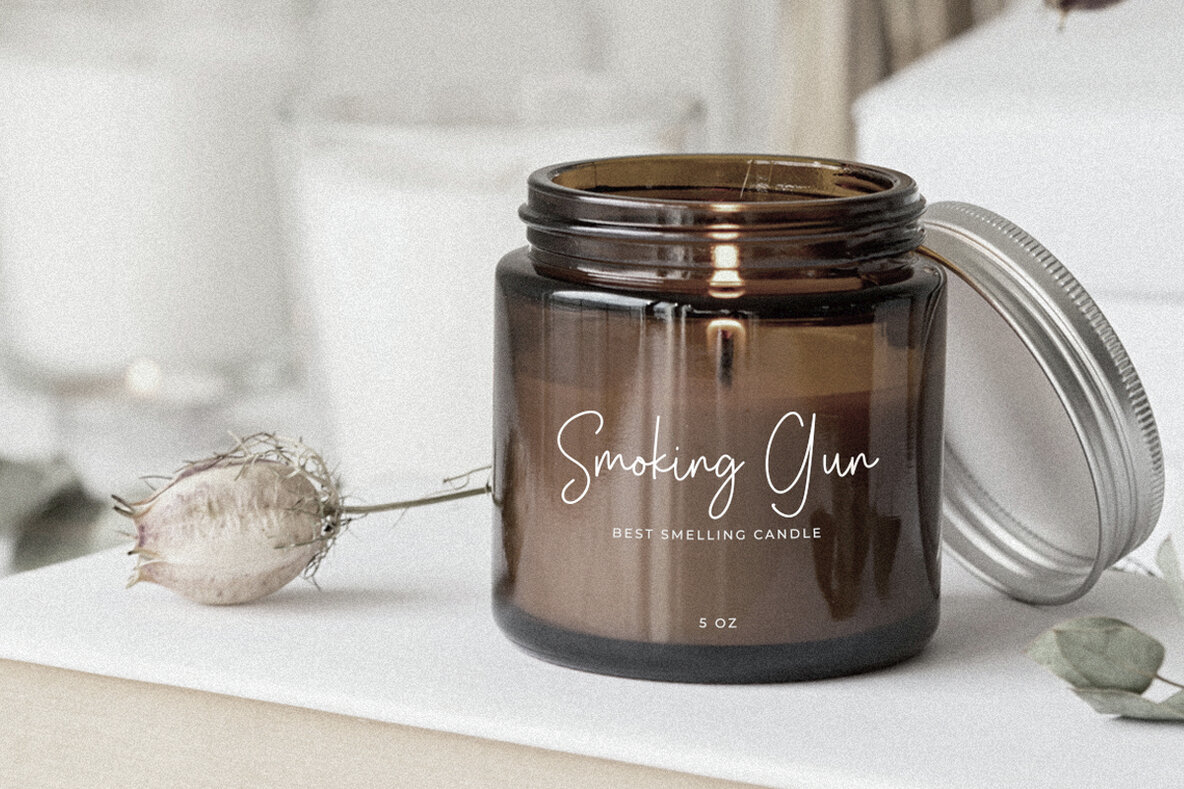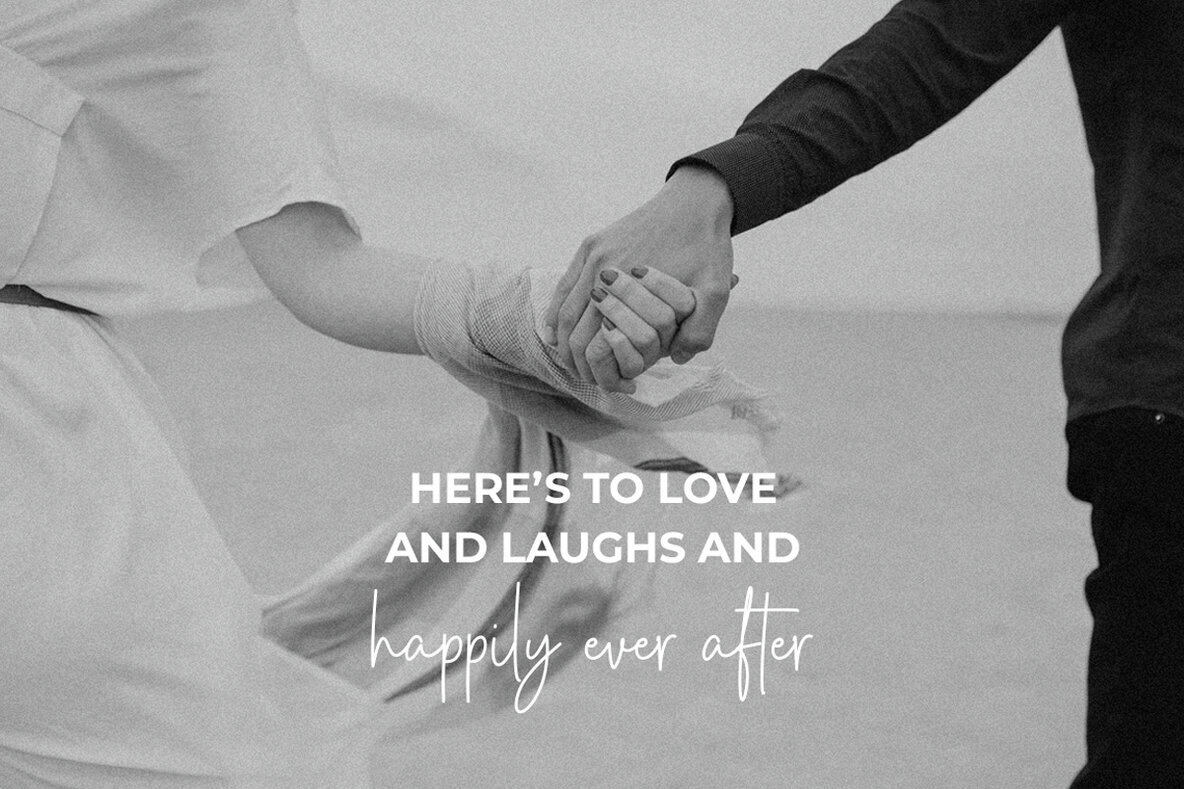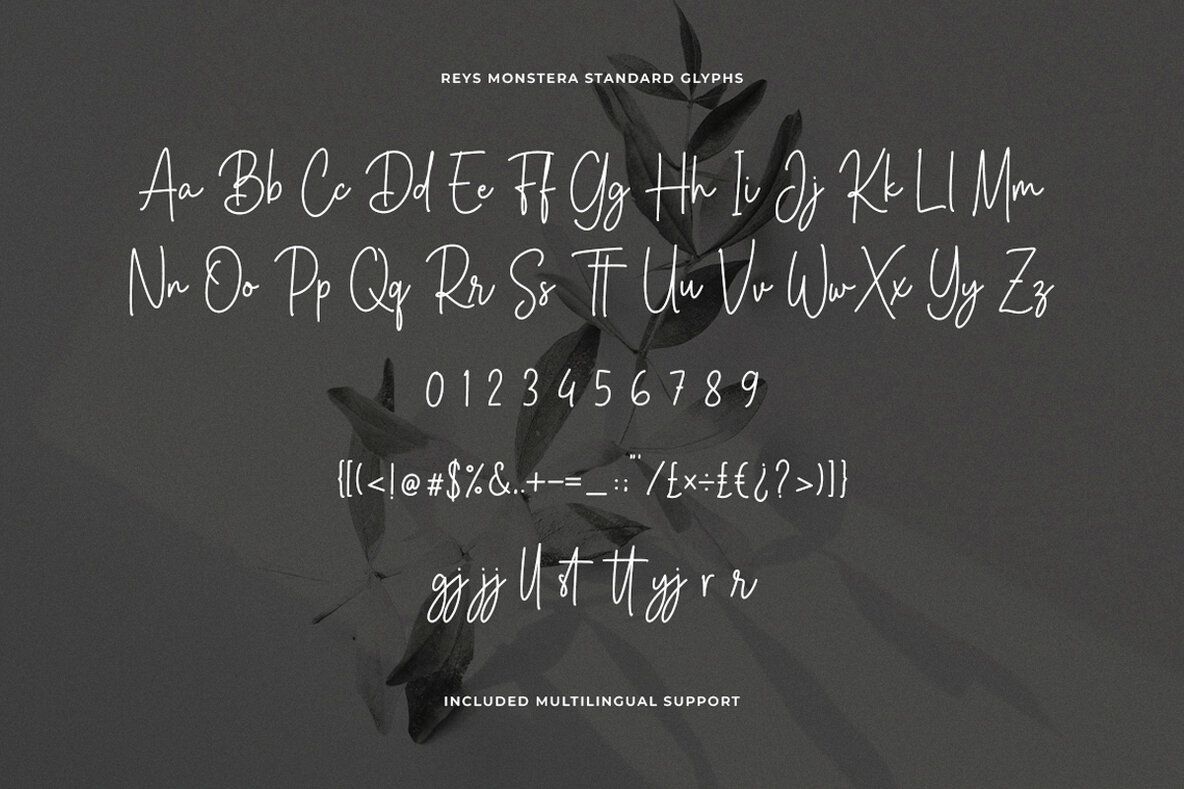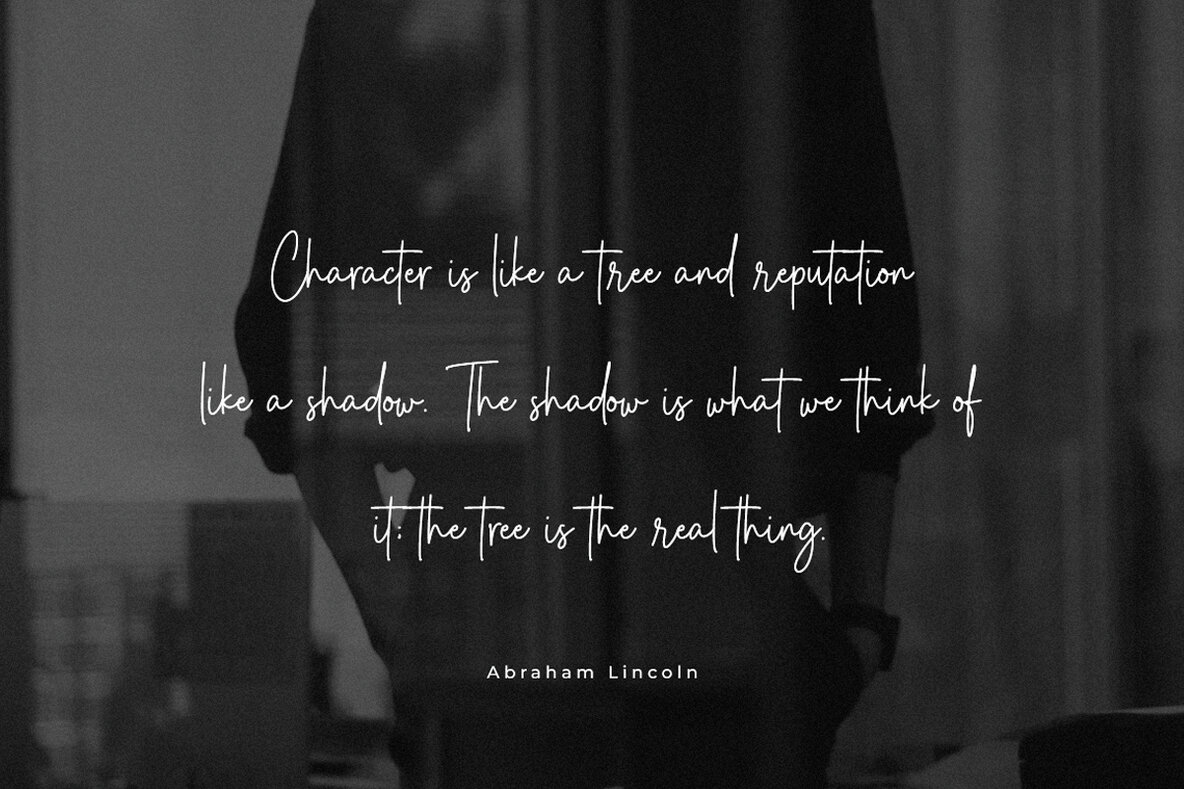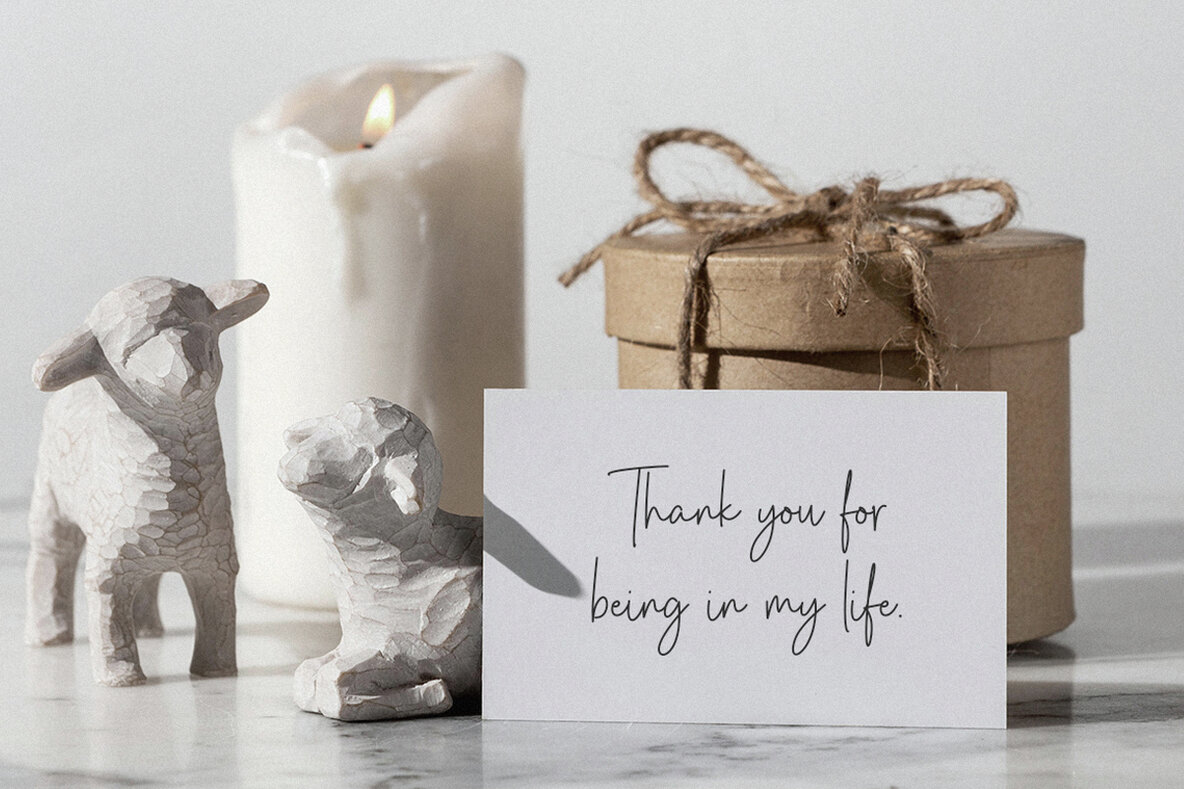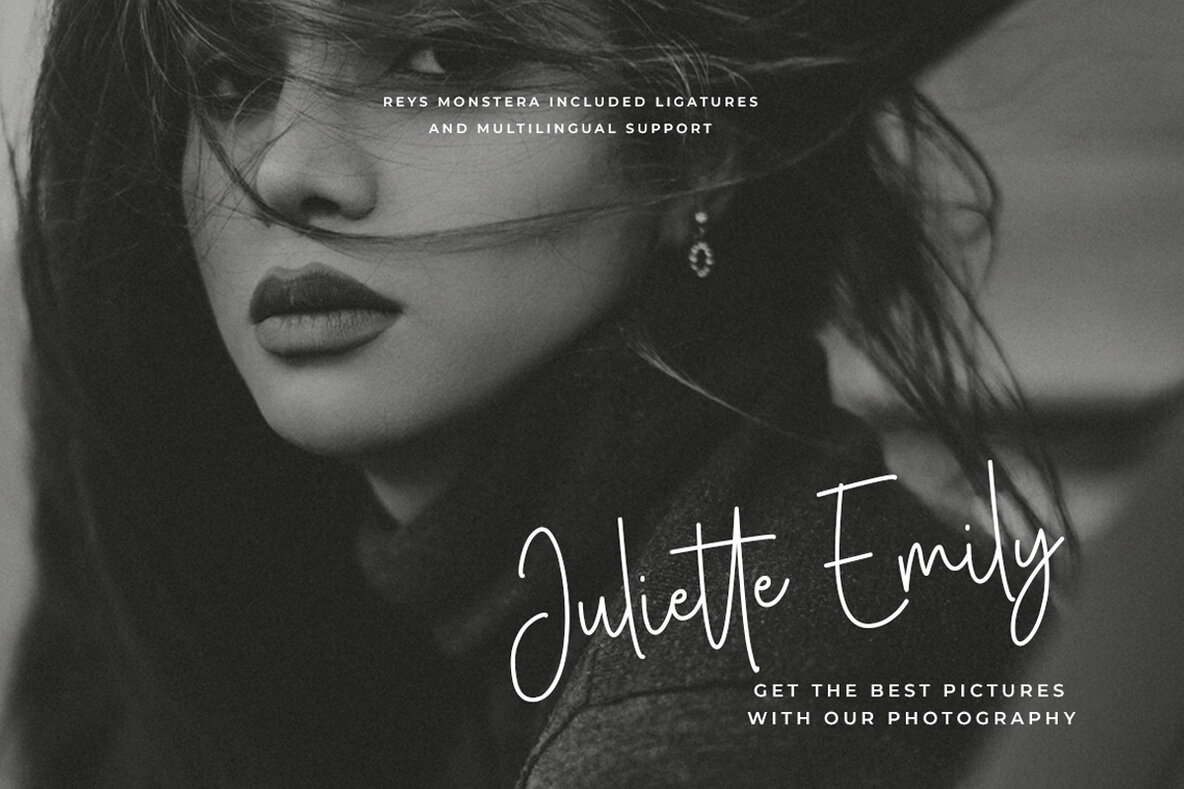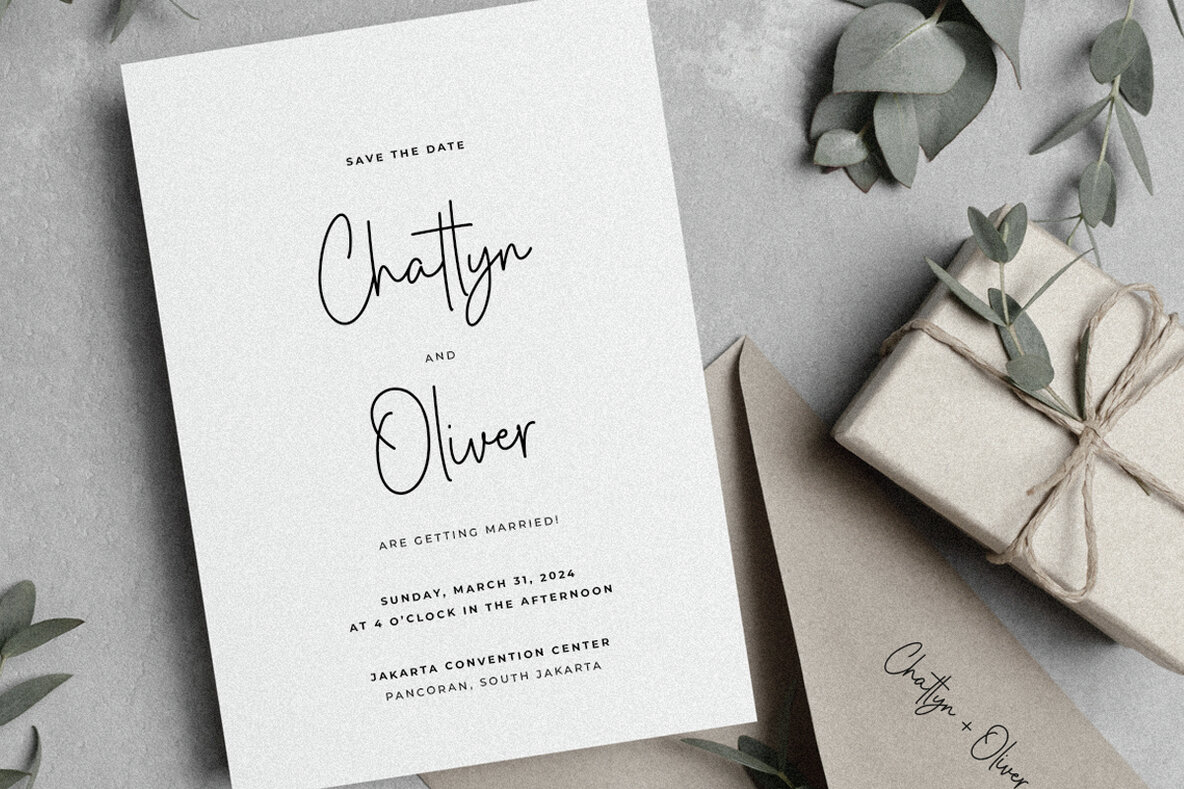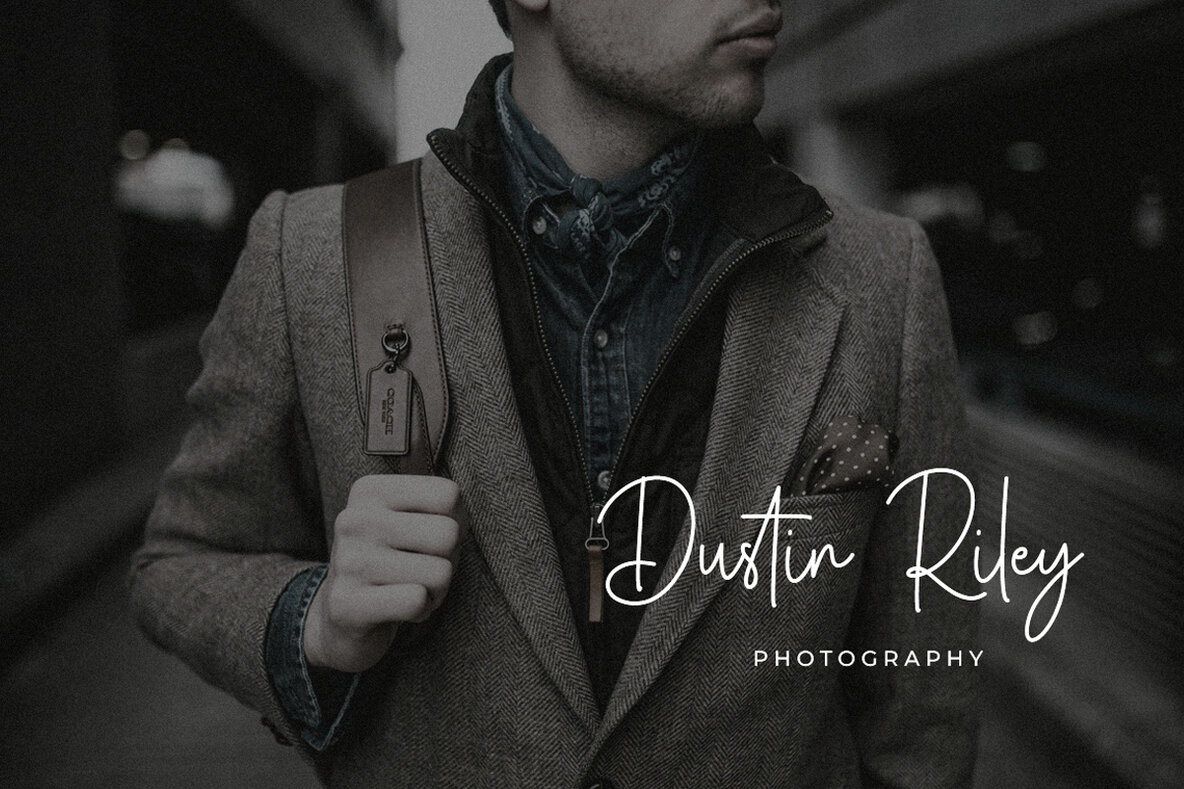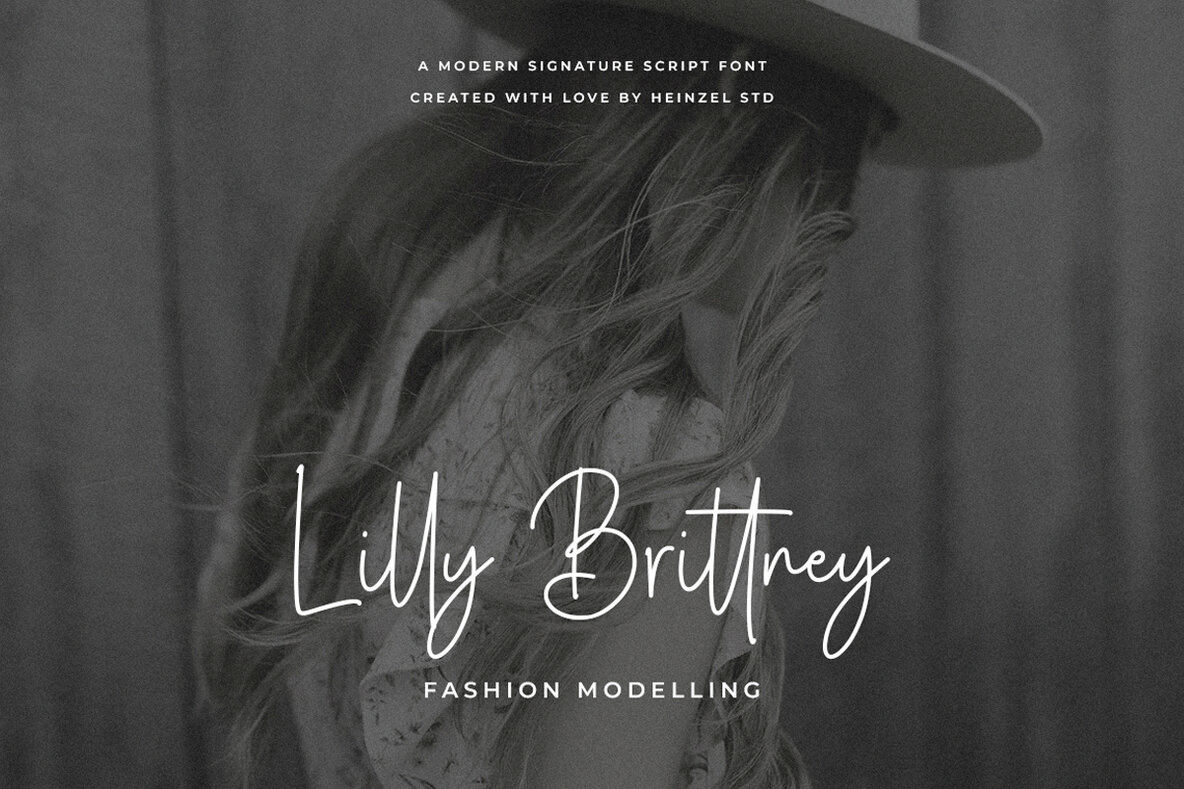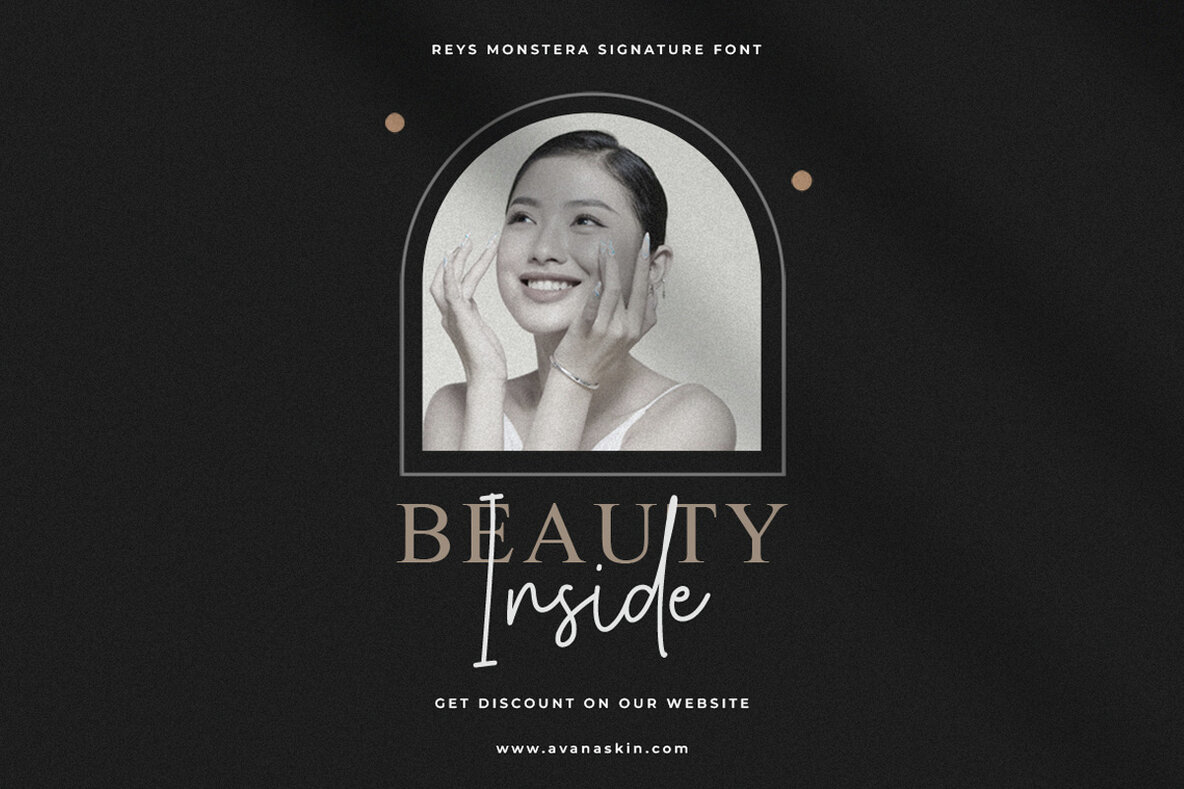
Reys Monstera Font
Reys Monstera Regular
Reys Monstera is a modern signature script font with an elegant touch, ideal for wedding invitations, thank you cards, quotes, greeting cards, logos, business cards, social media posts, and marketing materials. Its distinct and timeless style adds a handwritten charm to any design, helping you create spectacular projects.